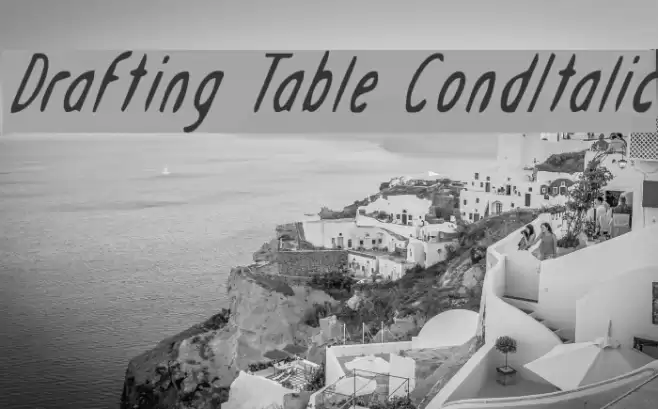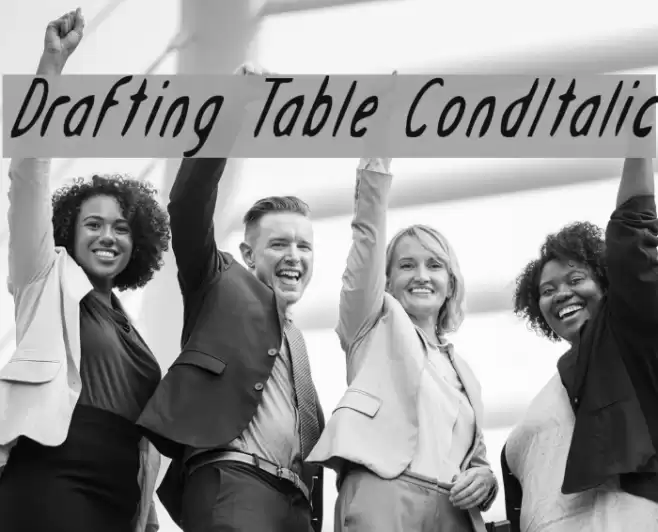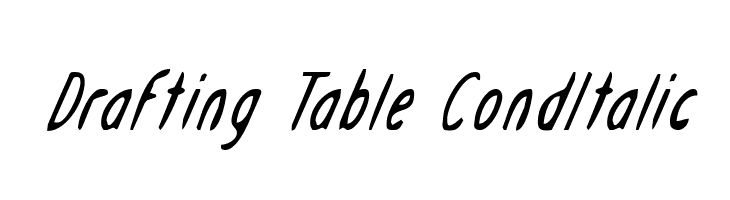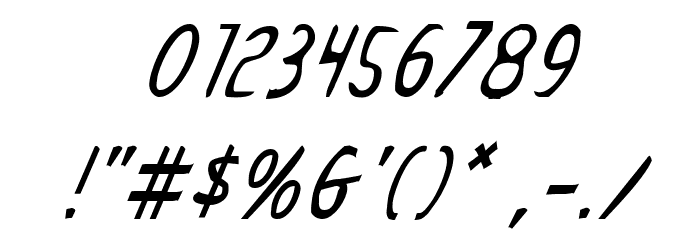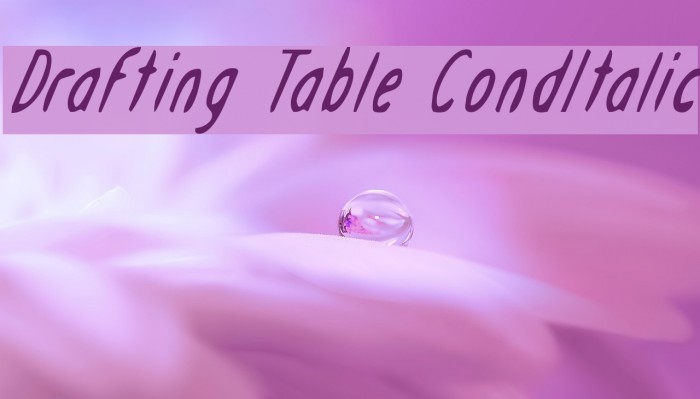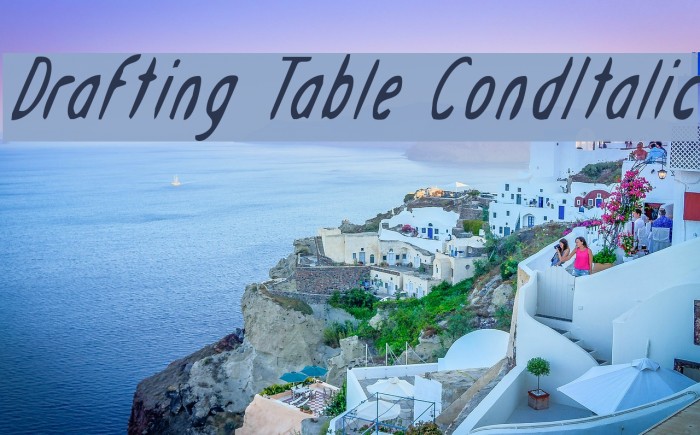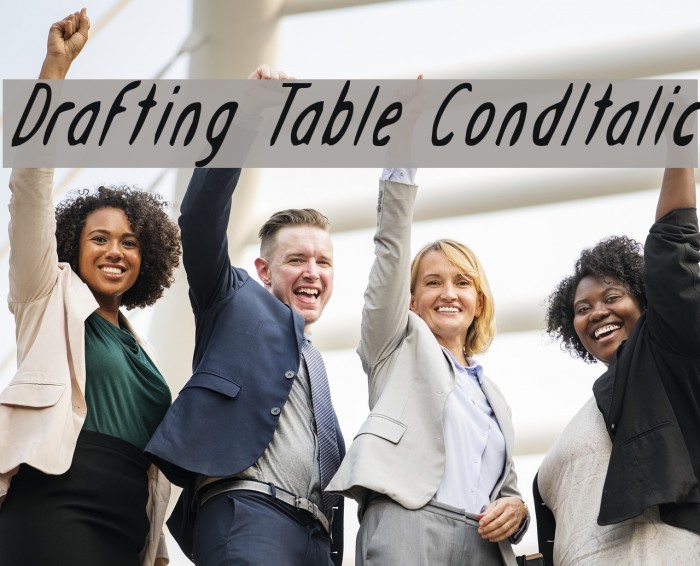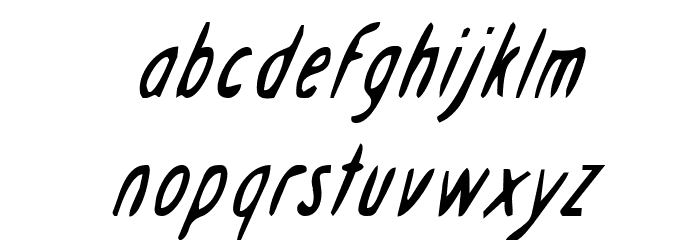
Drafting Table CondItalic Font
Drafting Table CondItalic Description
This font features a condensed italic style with a modern and dynamic appearance. The letters are slightly slanted, giving a sense of motion and fluidity. The strokes are consistent, with medium contrast, providing a clean and legible look. The uppercase and lowercase letters maintain a uniform width, contributing to a cohesive visual flow. The numbers and special characters are designed to complement the alphabet, ensuring versatility across various applications. The overall design is sleek and contemporary, making it suitable for a wide range of creative projects.
A modern, condensed italic font with medium contrast and sleek design from Comic fonts.
- Proposed Projects: Ideal for branding, advertising, posters, and editorial design where a modern and dynamic look is desired.